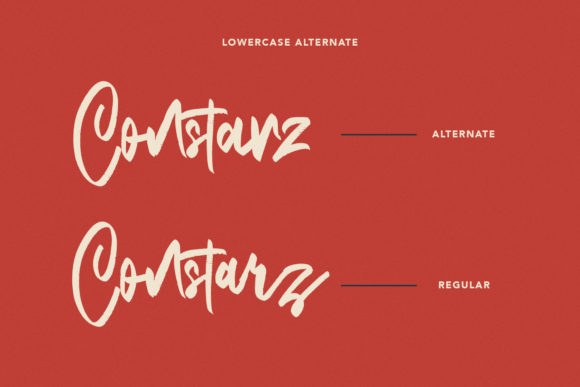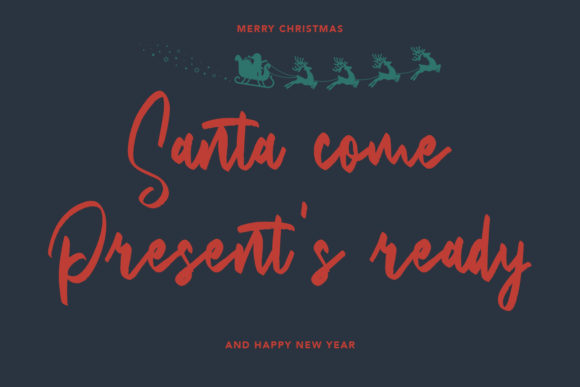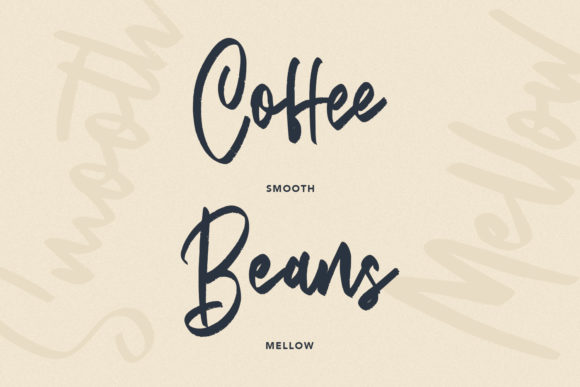
Introduction to Constarz Font
Constarz is a thick lettered and daring brushed handwritten font, crafted to give your headlines and logotype projects a stylish touch.
This original look will appeal to a wide range of crafty ideas, from letterheads and titles, to stationery .